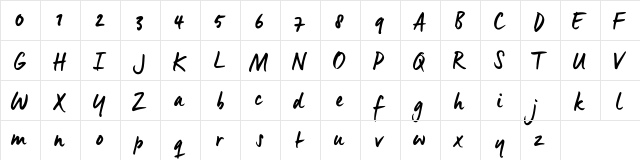
Design Context for Manus Smooth_TRIAL Typeface
Manus Smooth_TRIAL is a composed and adaptable typeface that performs quietly and consistently across a wide range of design contexts.